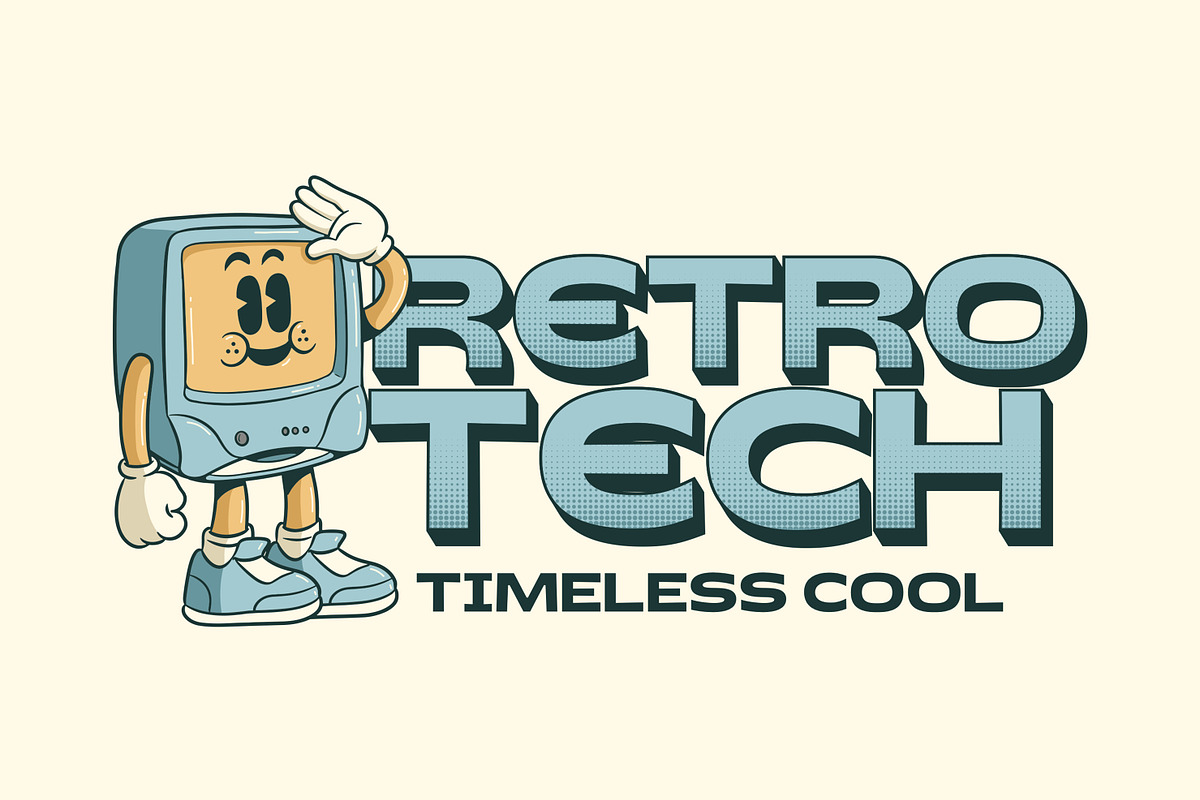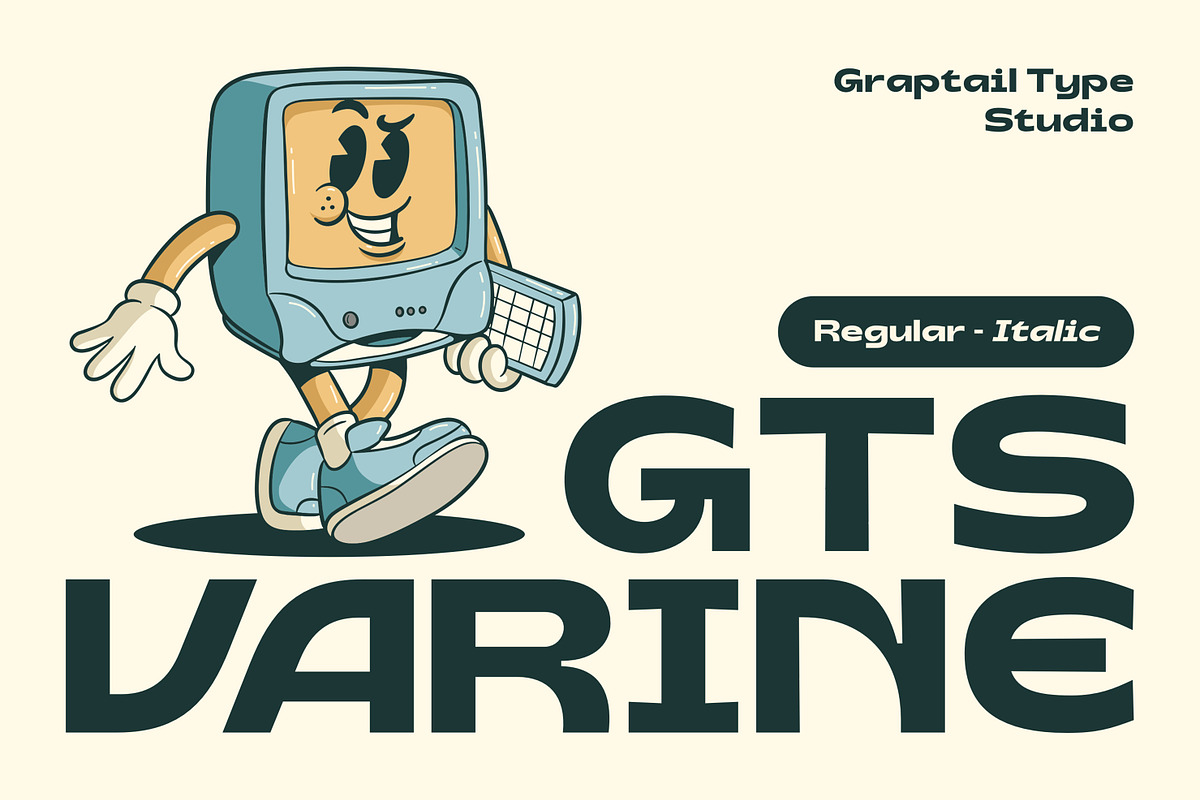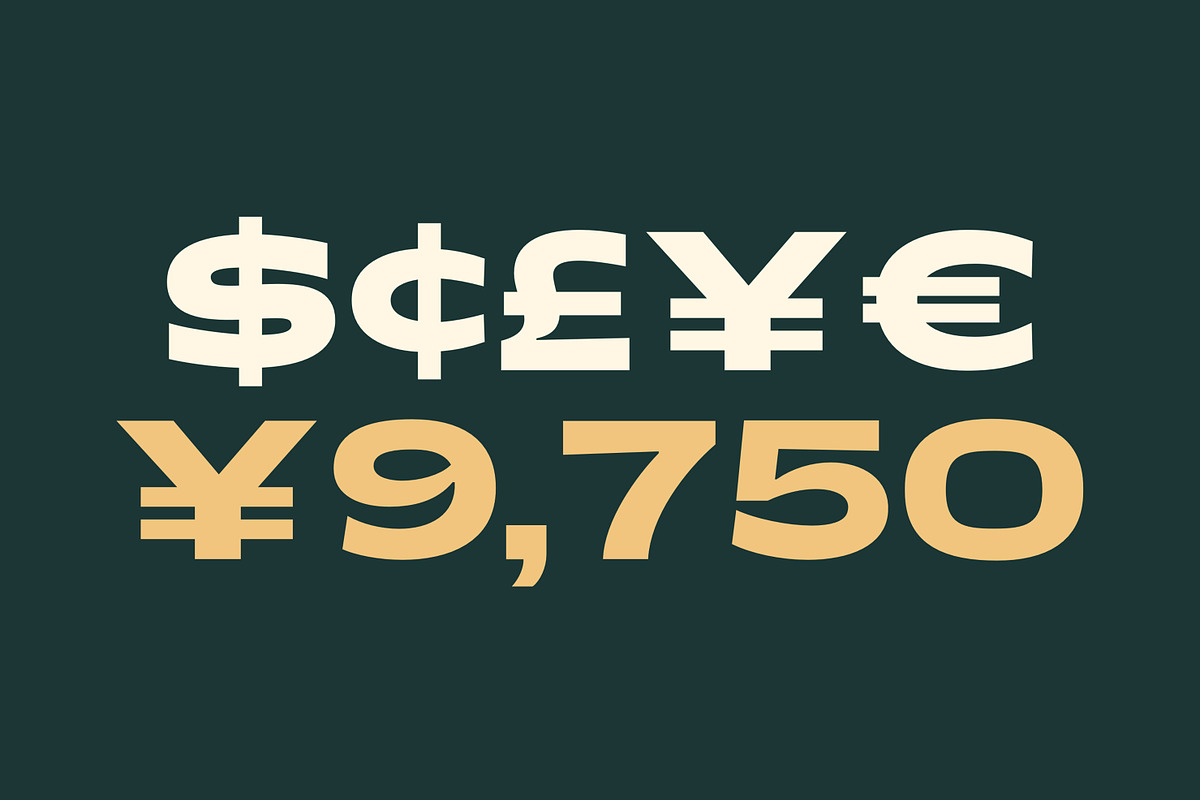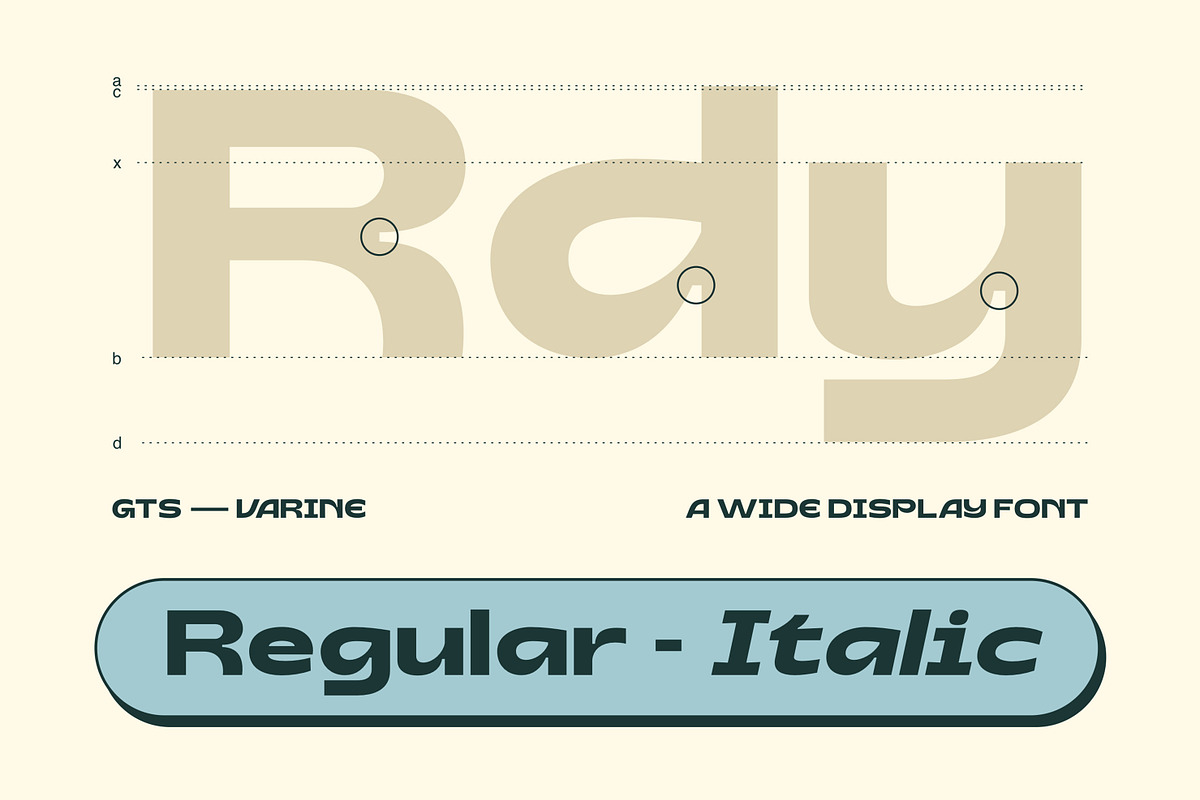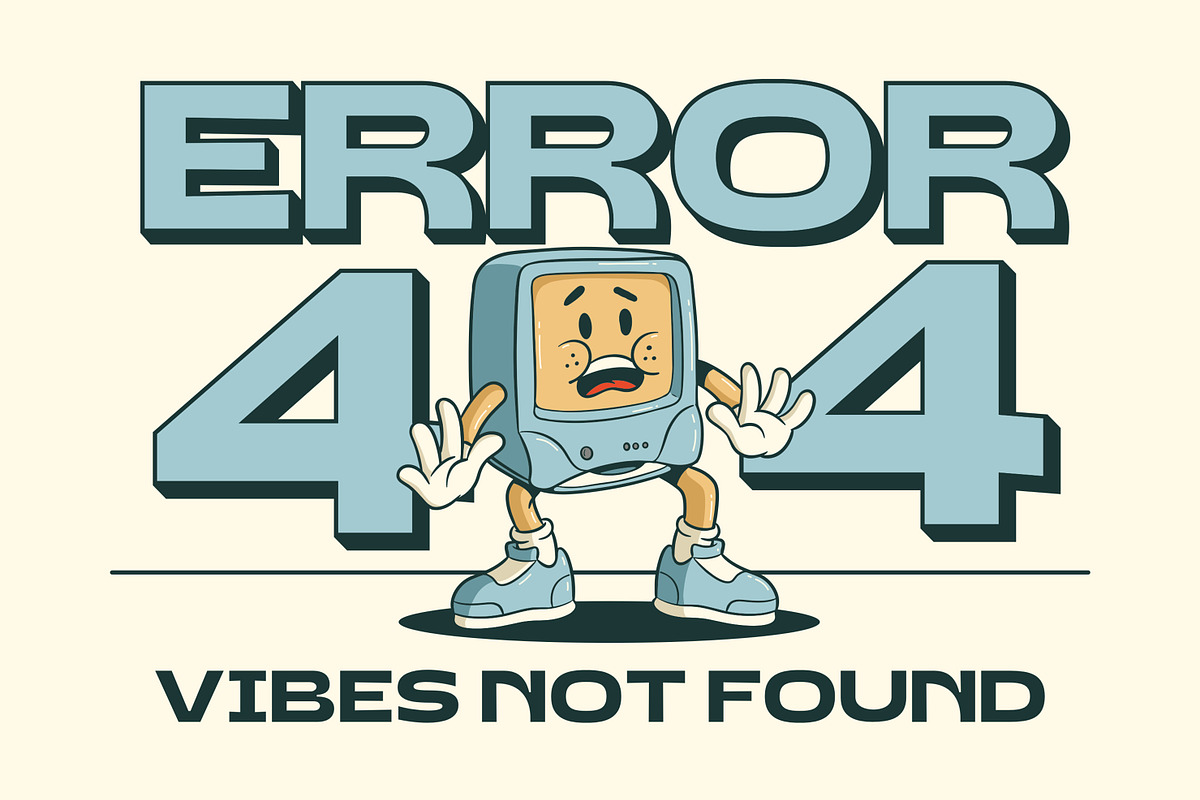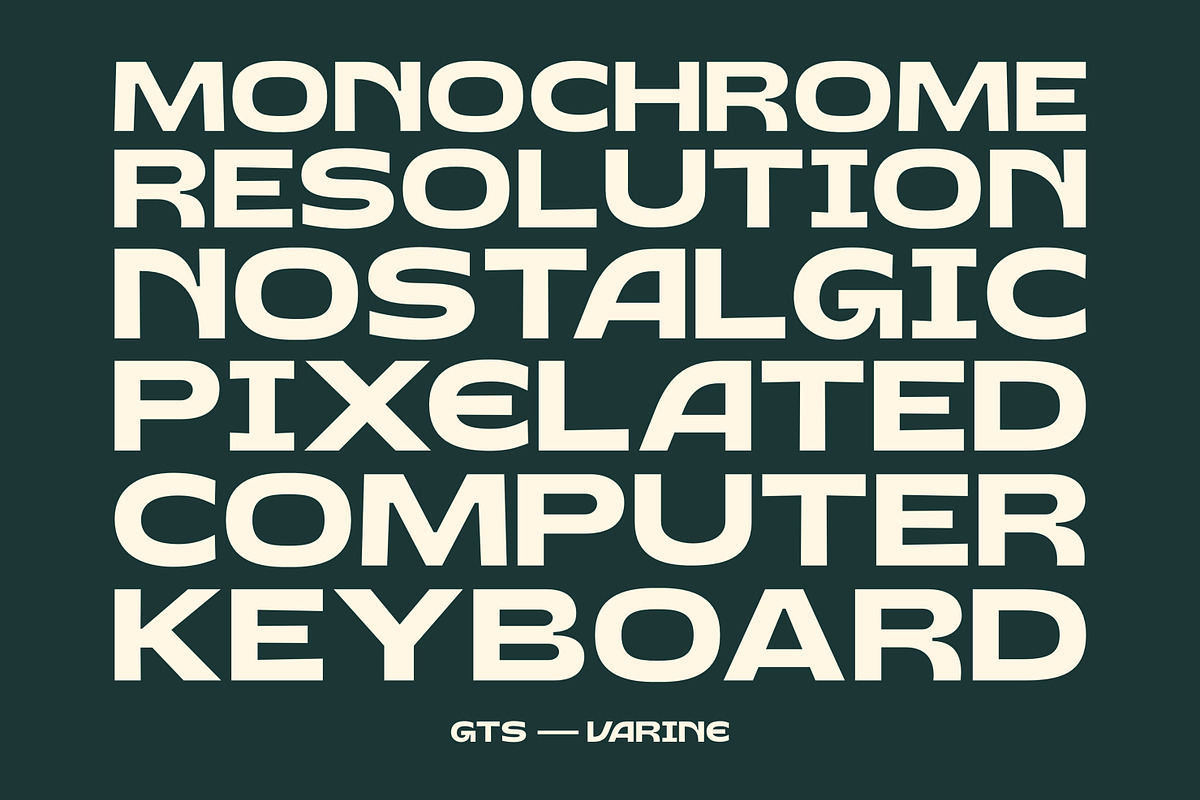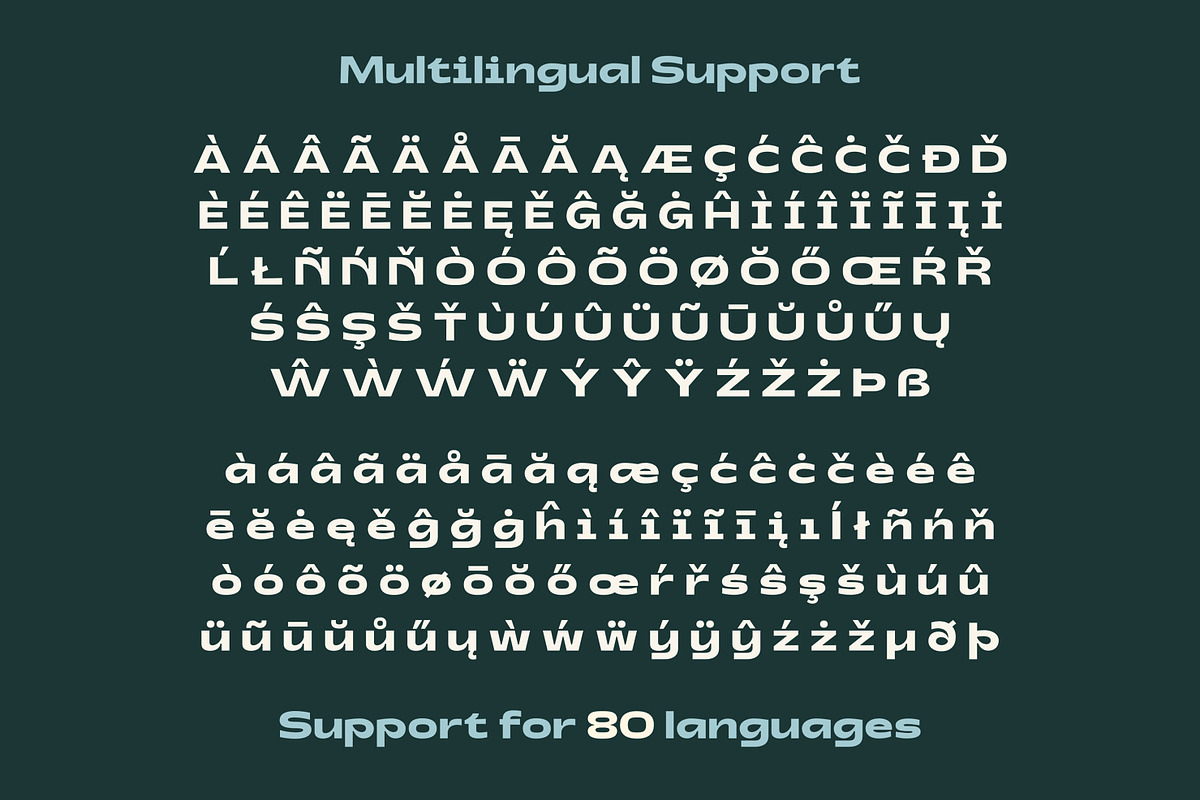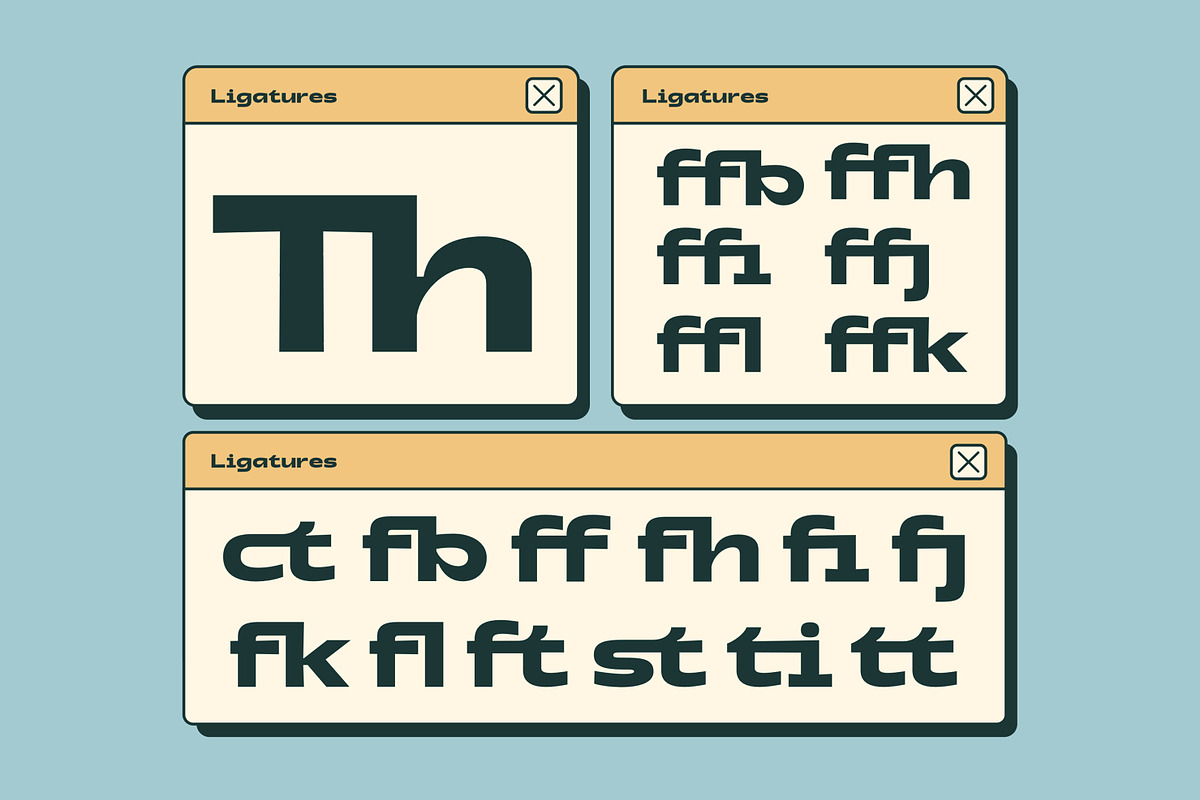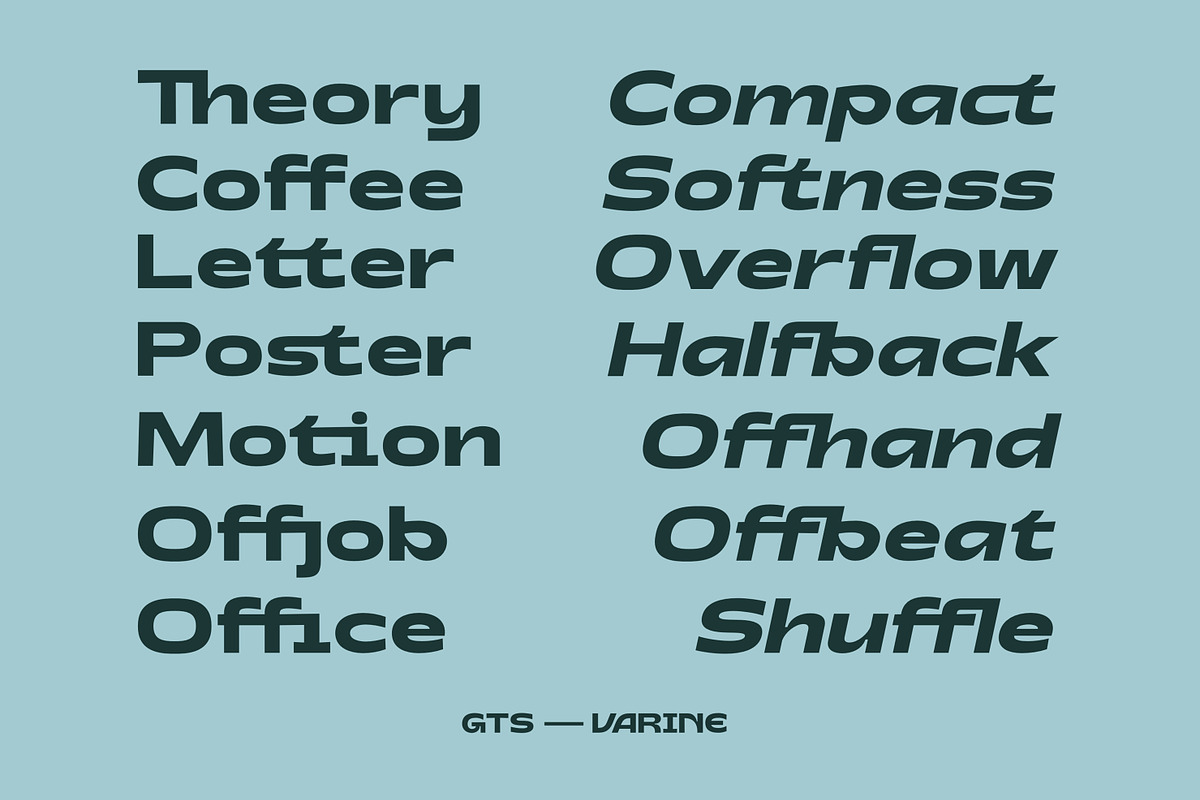
Gts Varine - Wide Display Font
Gts Varine is a bold wide display font built with strong, confident letterforms that instantly command attention. Its wide proportions give your typography a powerful visual impact, making it ideal for designs that need to stand out clearly and decisively.
This font includes 5 stylistic features and 19 ligature features, allowing you to create expressive, flexible, and refined typographic compositions. Gts Varine also comes in both regular and italic styles, giving you more freedom to emphasize motion, contrast, and hierarchy in your layouts.
Gts Varine blends strength, width, and advanced typographic features into a versatile display font that delivers a bold and modern statement across both print and digital media.